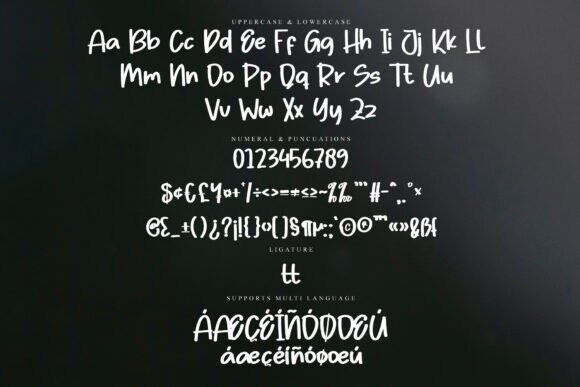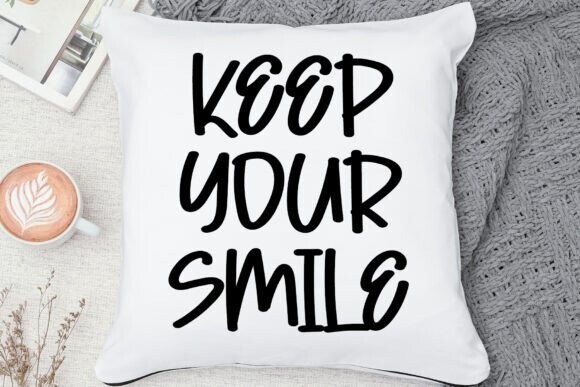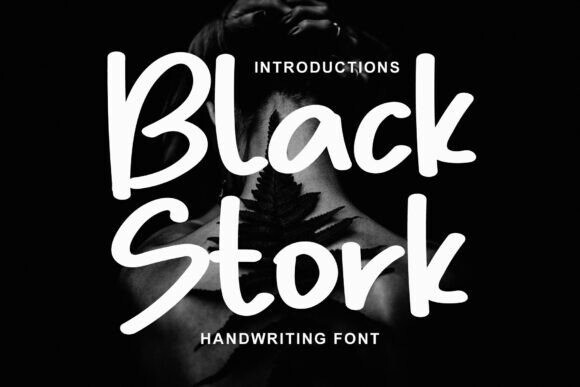
Black Stork Font
Designer: YanStudio
Black Stork Font is a cute and charming display font. Whimsical and a bit quirky, this font will brighten up each of your designs. Add it confidently to your projects, and you will love the results.